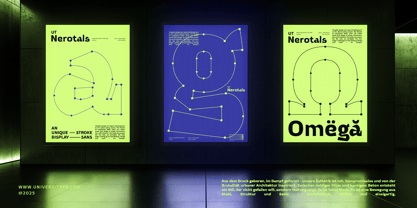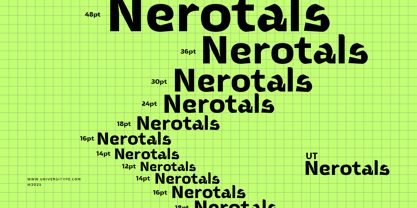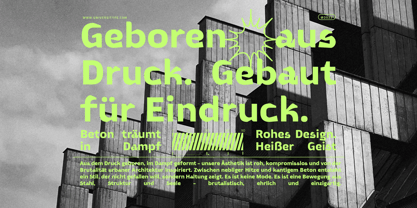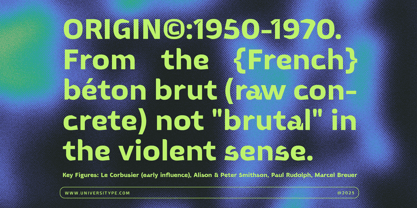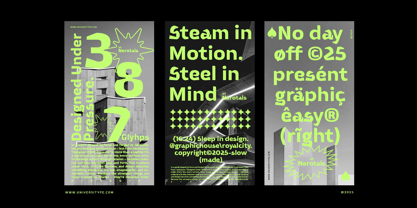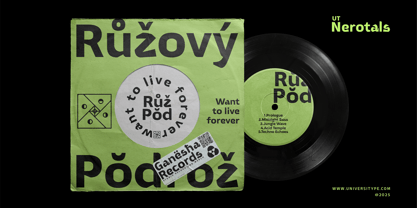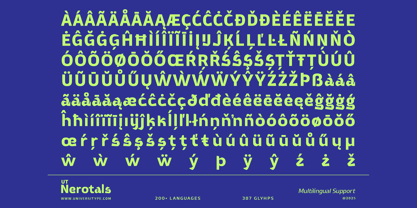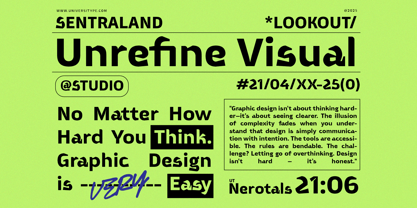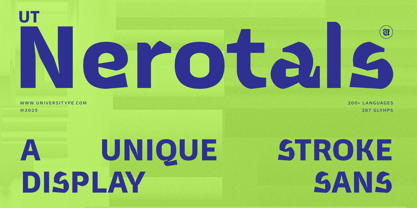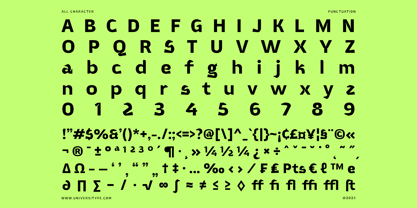
UT Nerotals
The UT Nerotals Font Family was designed by Muh. Aswar, Novan Arisandi and published by Universitype. UT Nerotals contains 1 styles.
UT Nerotals is a bold, contemporary typeface that draws inspiration from modern sculptural forms. Its design reflects a harmonious blend of strength and fluidity, capturing the essence of three-dimensional art in a two-dimensional medium. The font’s wide letterforms and smooth curves convey a sense of stability and elegance, making it a versatile choice for various design applications.​
Inspiration Behind the UT Nerotals:
The inception of UT Nerotals was deeply influenced by a captivating sculpture that seamlessly blends organic forms with geometric precision. This artwork, characterized by its fluid contours and harmonious balance, served as a muse for translating three-dimensional artistry into typographic form.​
Observing the sculpture’s interplay of light and shadow, the design process aimed to capture its dynamic essence. The gentle curves and robust structures of the piece inspired letterforms that exude both strength and elegance. Each character in UT Nerotals mirrors the sculpture’s ability to convey movement and stability simultaneously.​
The sculpture’s tactile quality, inviting viewers to engage with its form, prompted a focus on creating a typeface that feels approachable yet distinctive. This led to the development of wide letterforms with smooth transitions, echoing the sculpture’s inviting presence.​
In essence, UT Nerotals is a typographic homage to the transformative power of sculpture. It encapsulates the essence of turning solid materials into expressive forms, translating that philosophy into a font that bridges the gap between visual art and written communication.
Key Features:
• Wide, bold letterforms with smooth curves
• High legibility across various sizes
• Versatile for both digital and print media
• Reflects modern sculptural aesthetics
• Standard uppercase and lowercase characters
• Numerals and punctuation
• Multilingual support
• Standard Ligatures
• 300+ Glyphs